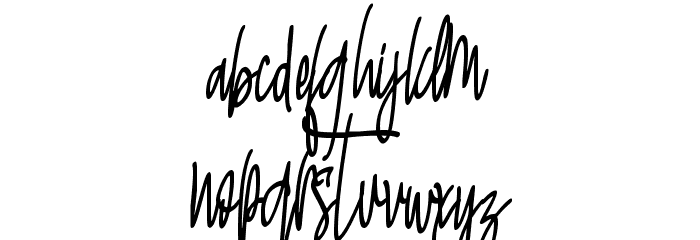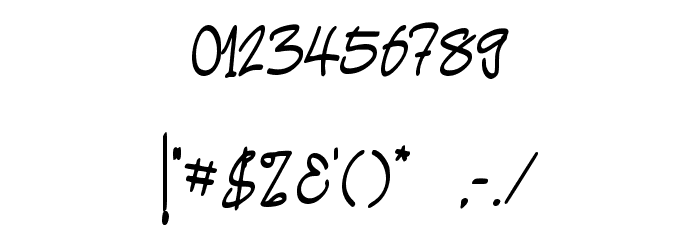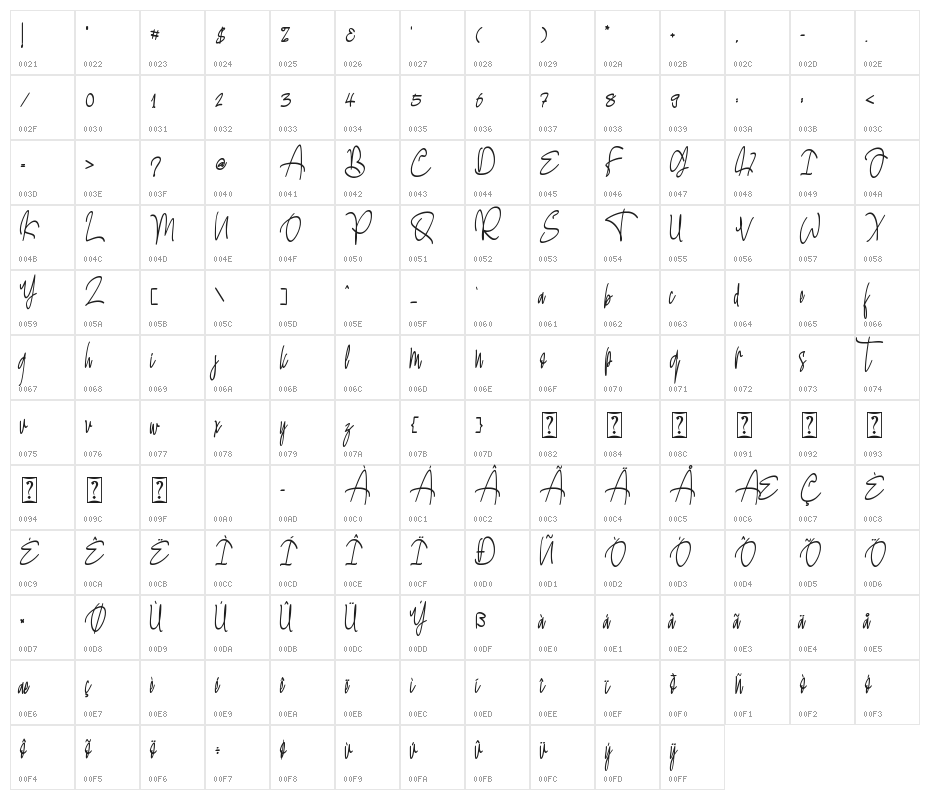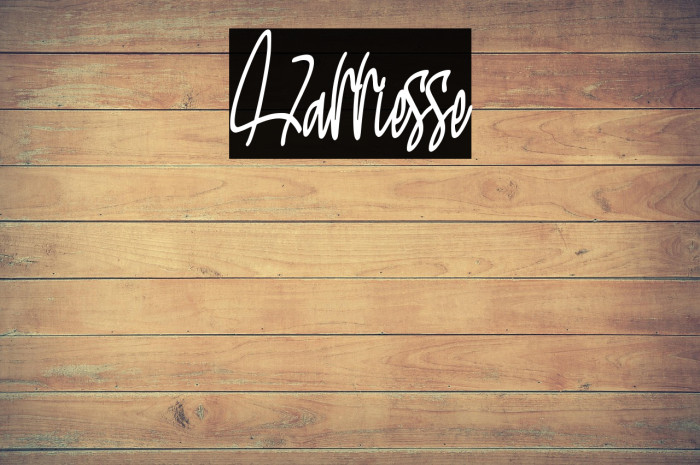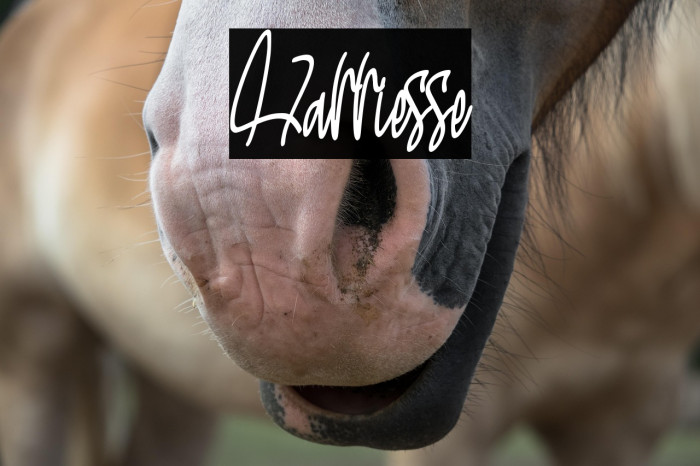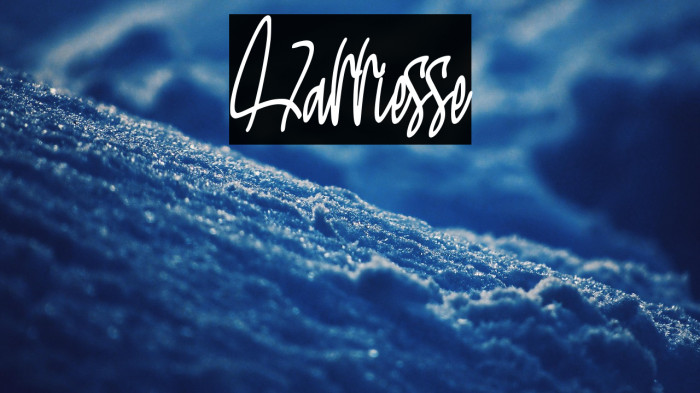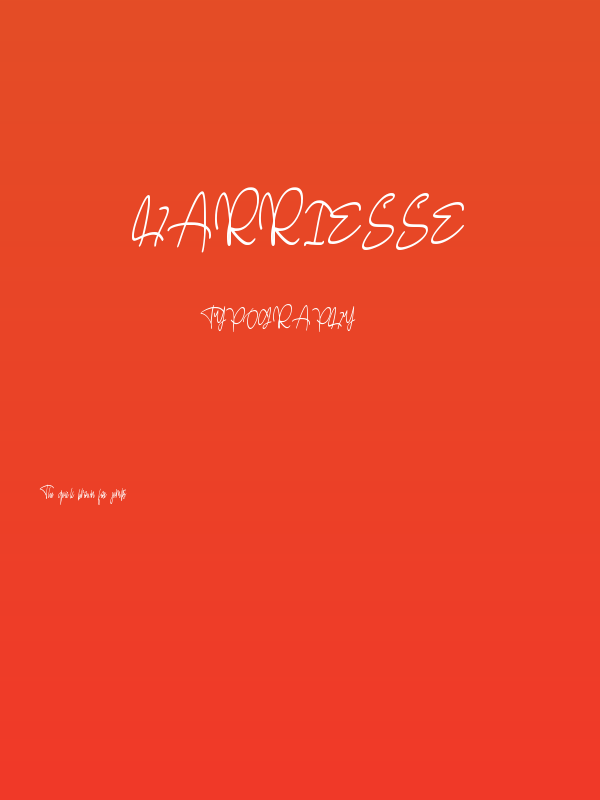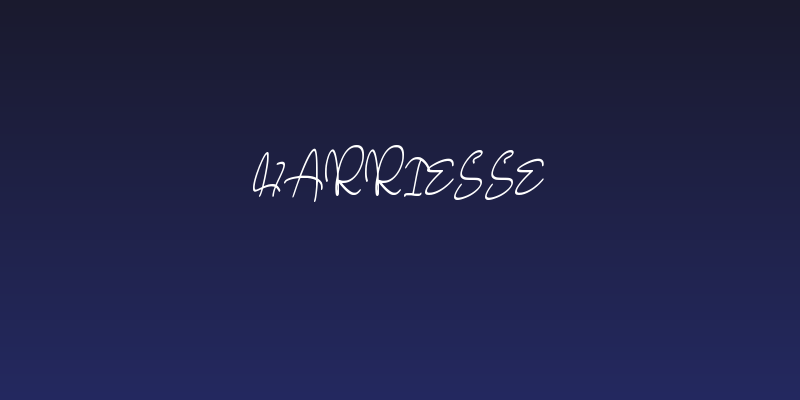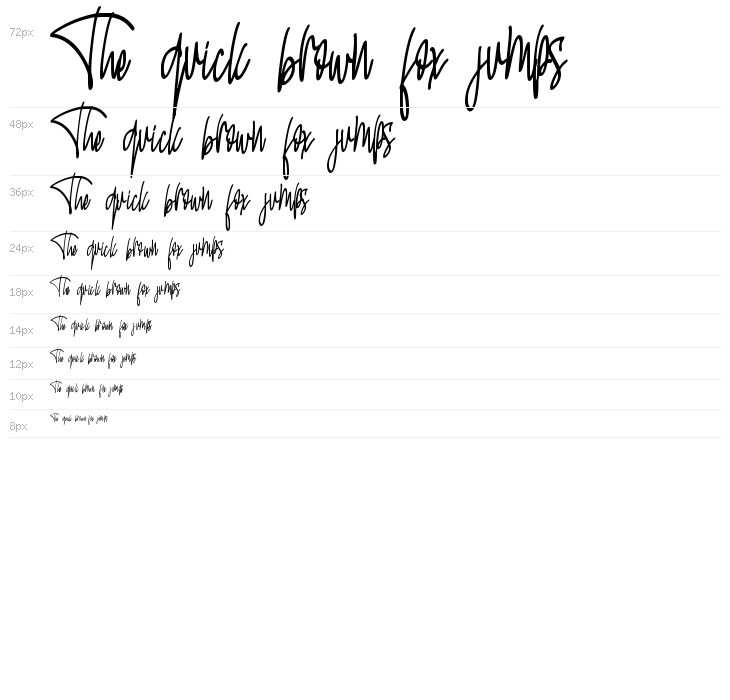
Harriesse Font
This font features a dynamic and expressive handwritten style, characterized by its fluid and continuous strokes. The letters are interconnected, creating a sense of movement and energy. The uppercase and lowercase letters maintain a consistent flow, while the numerals and special characters complement the overall aesthetic. The font's design is both artistic and legible, making it suitable for creative projects that require a personal touch. Its unique style stands out, offering a blend of elegance and casual flair.
A dynamic handwritten font with fluid, interconnected strokes.
- Proposed Projects: Ideal for invitations, greeting cards, personal branding, and artistic projects.
- Category: Handwritten
- Character Spacing: Tight
- Use Case: Logos, Headlines, Artistic projects